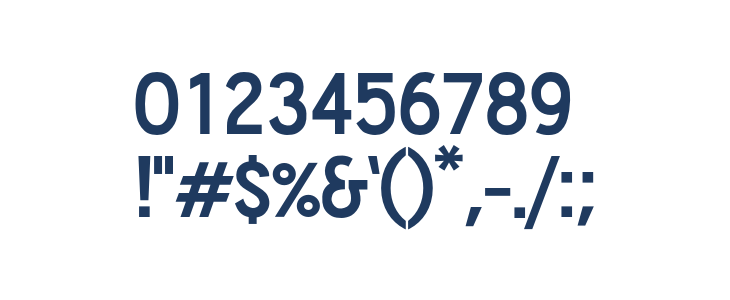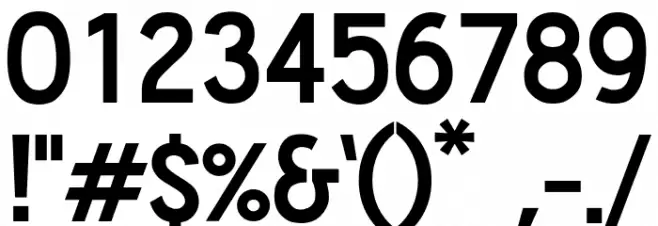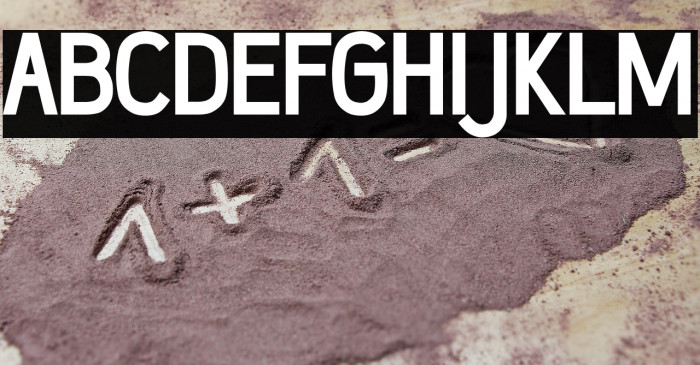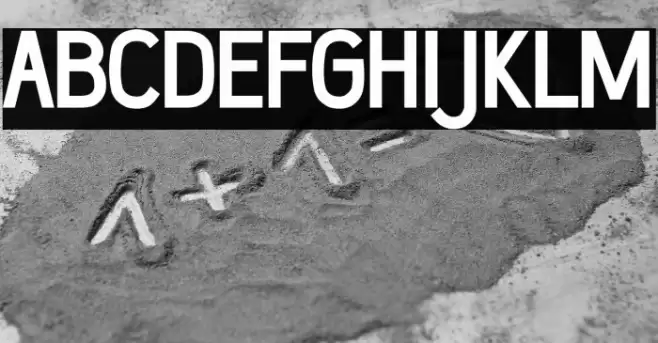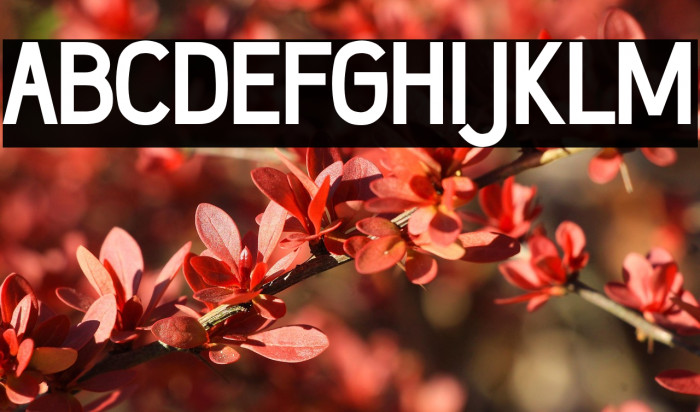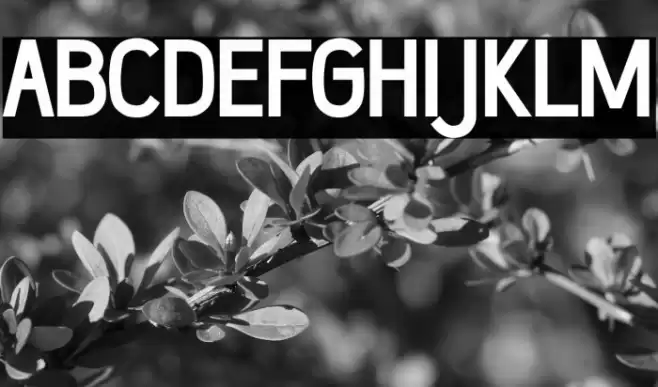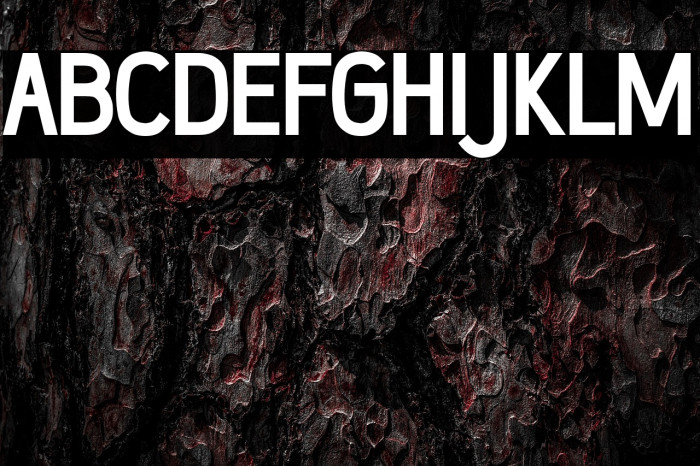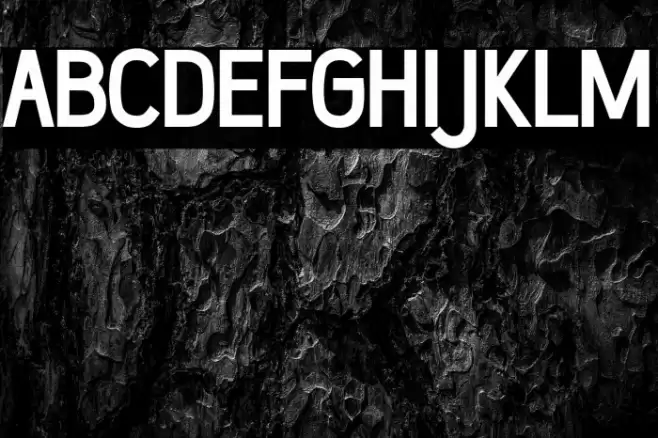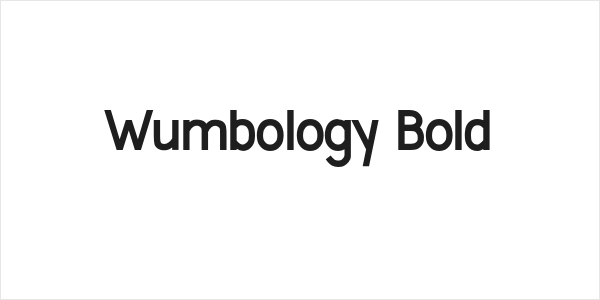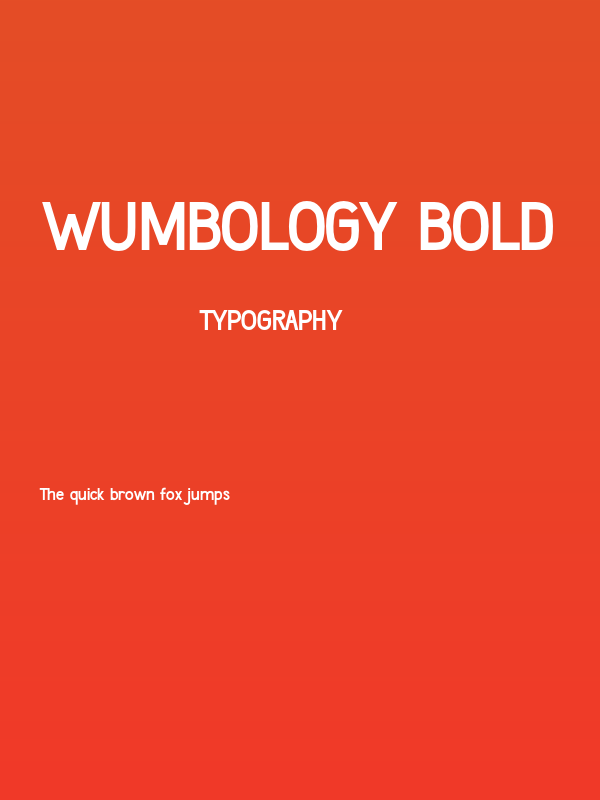
Wumbology Bold Font
Wumbology Bold Description
This font features a bold and modern sans-serif style, characterized by clean lines and a strong presence. The uppercase and lowercase letters are well-proportioned, with a consistent stroke width that conveys a sense of stability and confidence. The numerals are clear and easy to read, making them suitable for a variety of applications. Special characters are included, maintaining the font's cohesive look. The overall design is straightforward yet impactful, making it versatile for both digital and print media.
| Proposed Projects | Ideal for branding, headlines, posters, and digital media where a bold statement is needed. |